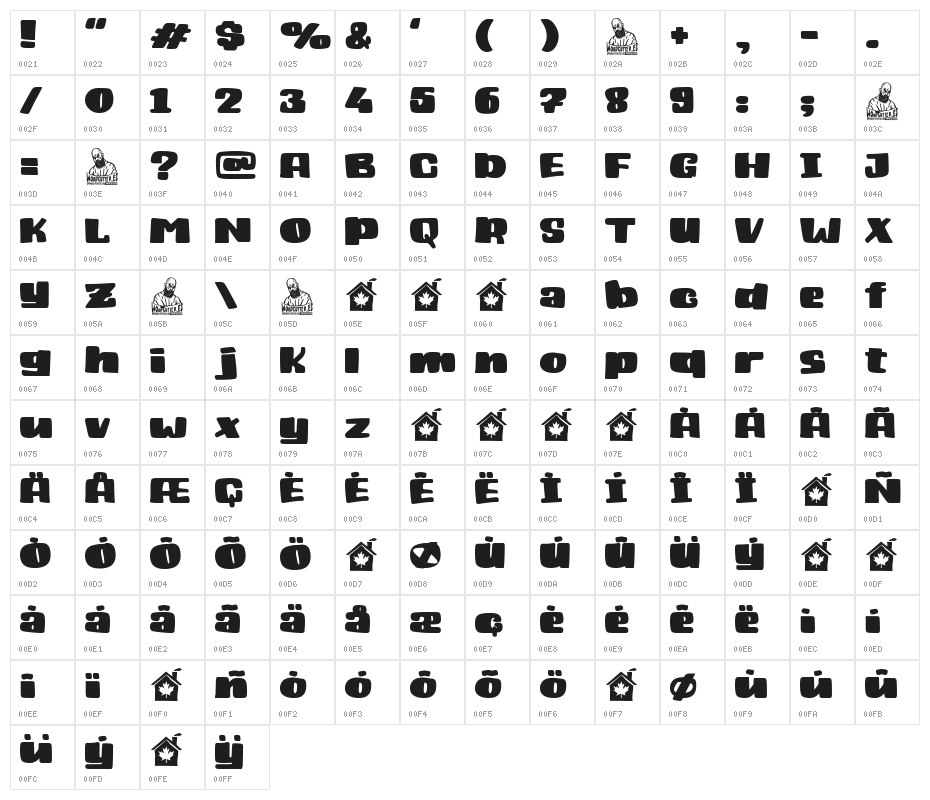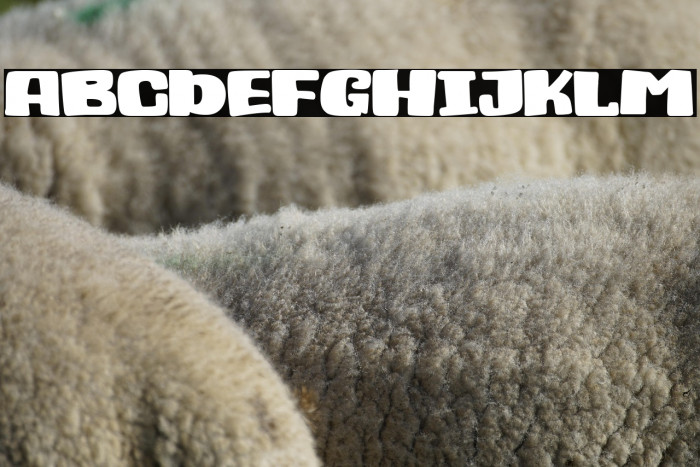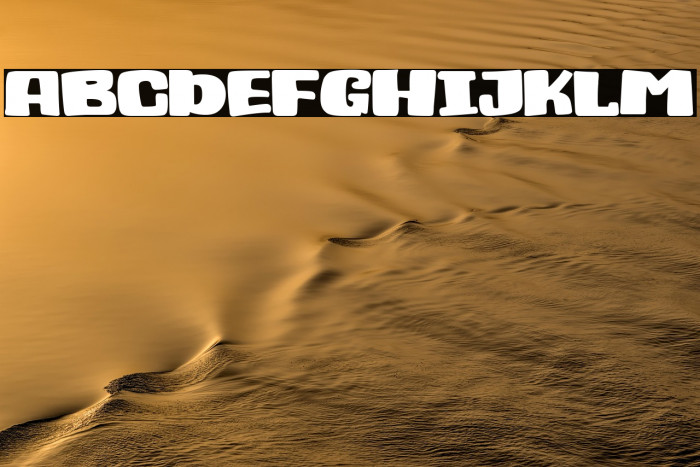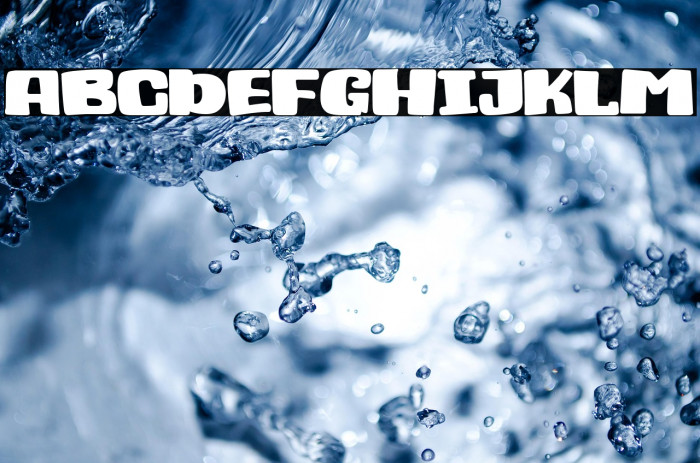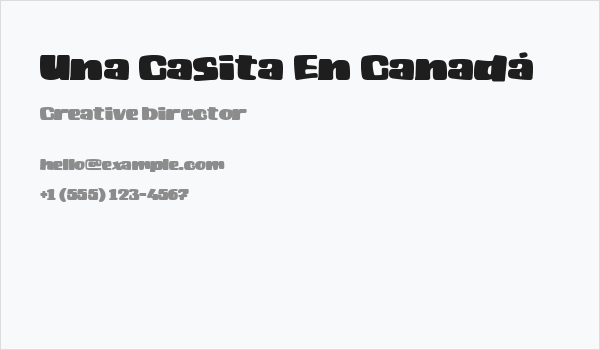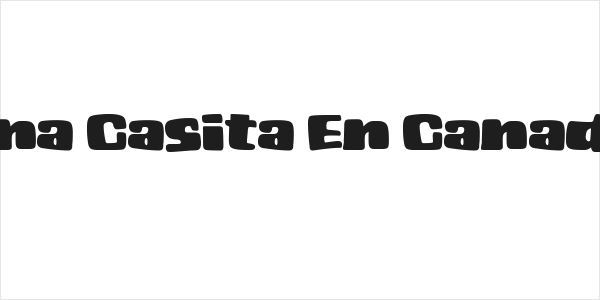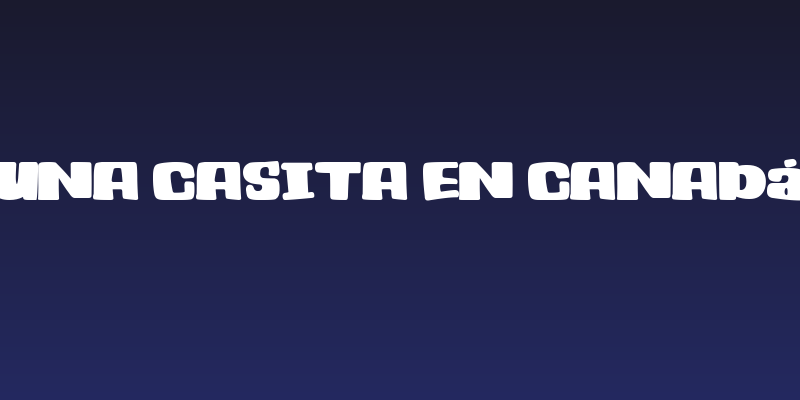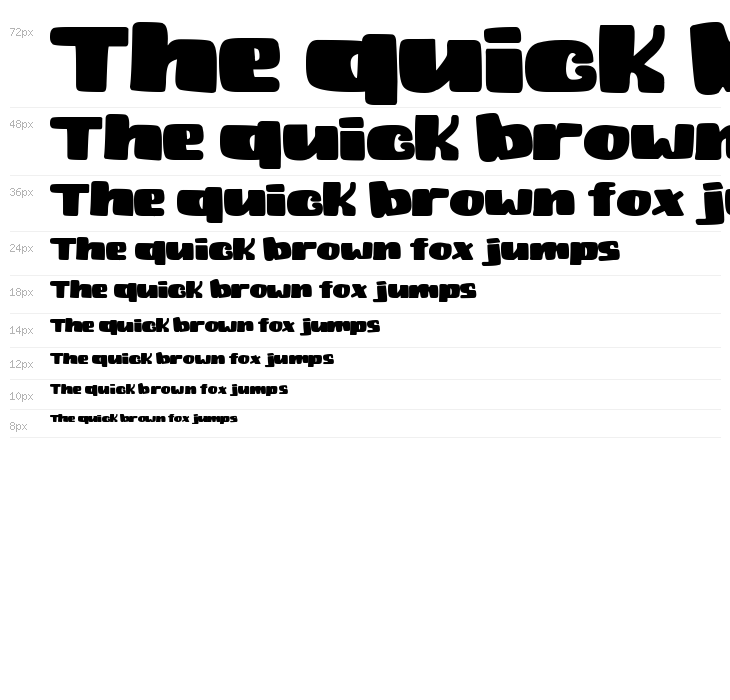
Una Casita En Canadá Font
Una Casita En Canadá Description
This font features a bold, playful design with a chunky, rounded appearance. The characters are wide and have a slightly irregular shape, giving them a hand-drawn feel. The uppercase and lowercase letters maintain a consistent style, with thick strokes and minimal contrast. The numbers and special characters follow the same aesthetic, ensuring uniformity across all glyphs. This font exudes a fun and informal vibe, making it suitable for creative and casual applications.
| Overall Style | Playful, Informal |
| Proposed Projects | Ideal for children's books, comic strips, playful branding, and casual event posters. |